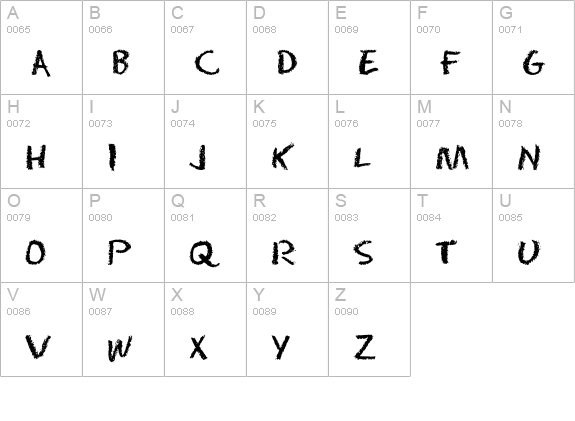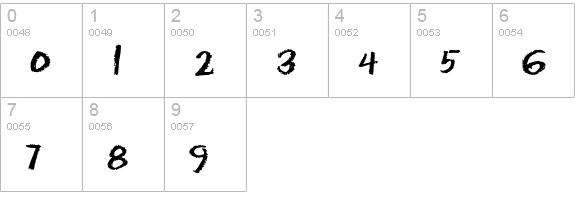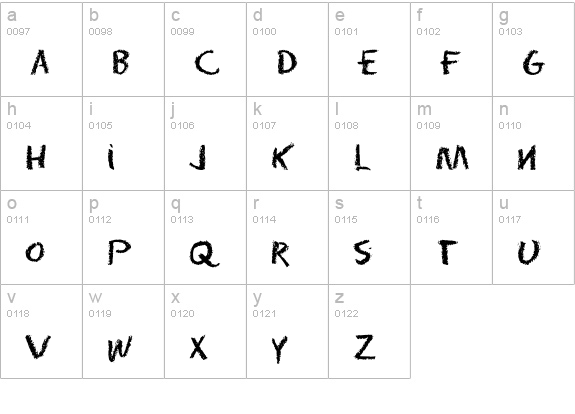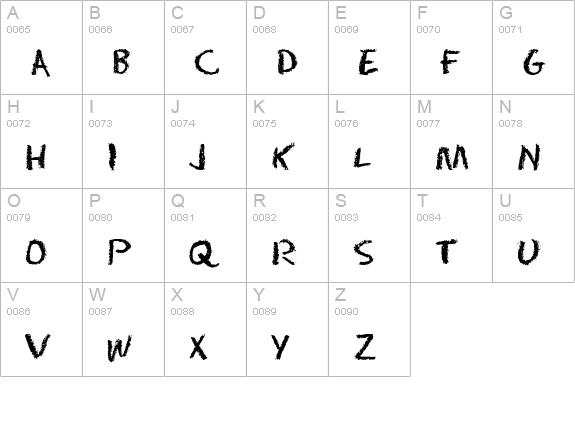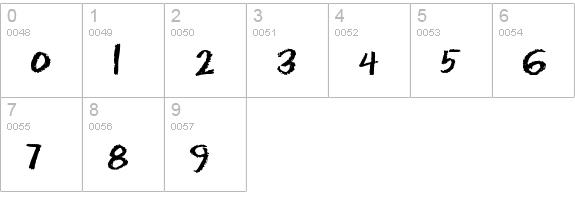
EraserDust Regular Font Details
EraserDust Regular is the standard, neutral variant in the EraserDust typeface family \xE2\x80\x94 well suited to general body text, paragraphs, and standard typographic work.
EraserDust Regular font is a whimsical and playful typeface that exudes a sense of creativity and fun. With its hand-drawn appearance and unique character shapes, this font is perfect for adding a touch of charm to any design project. Whether you're creating greeting cards, posters, or branding materials, EraserDust Regular will surely make your text stand out. The best part? EraserDust Regular is available for free download at FontsMarket.com, making it easily accessible to designers and creatives looking to add a touch of personality to their work. Embrace the casual and artistic feel of EraserDust Regular font and let your creativity shine!